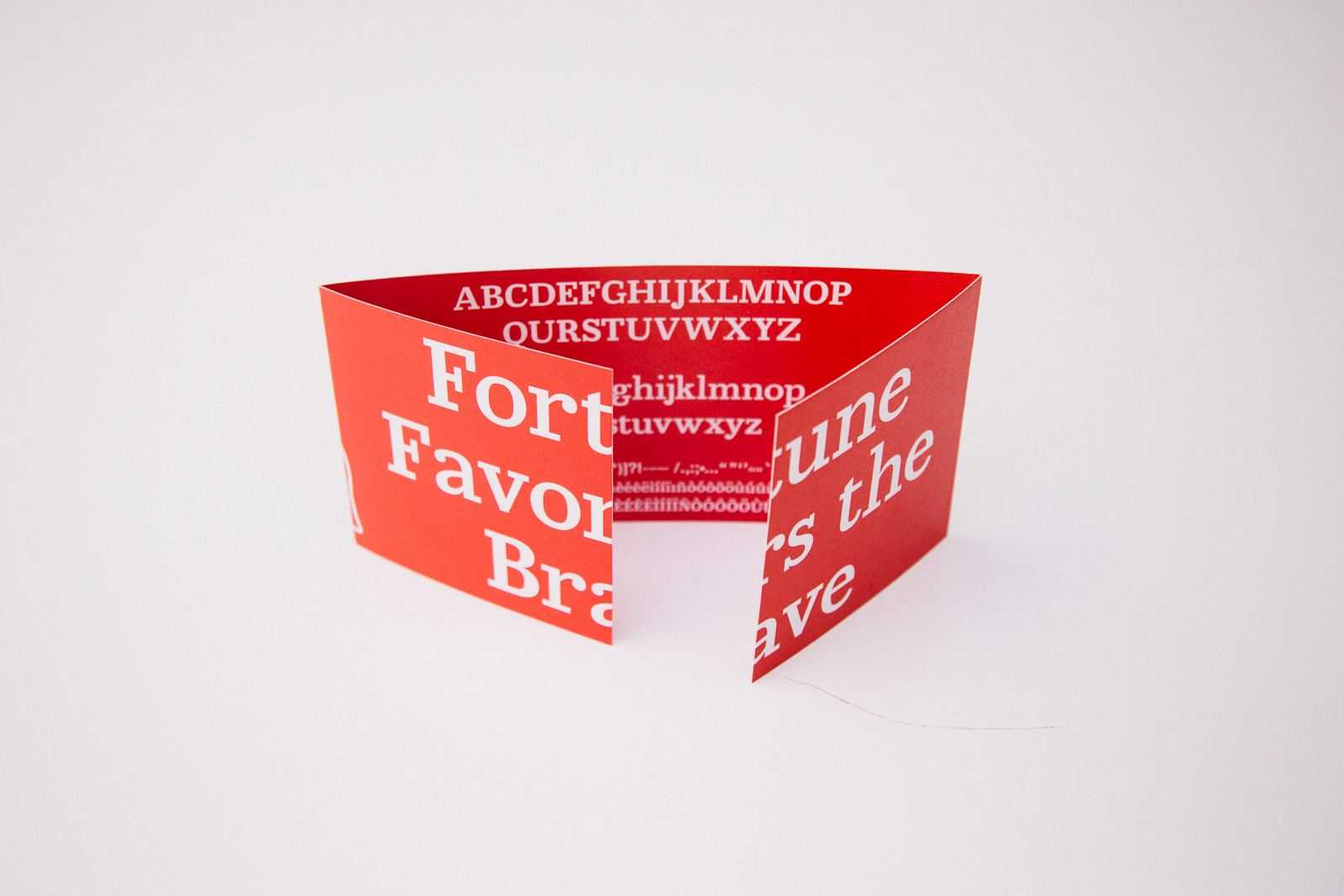
FD Slab
FD Slab is a utilitarian typeface with a utilitarian name. Inspired by American firemen, the slab serif allows for a strong and stable balance in the design. This typeface was derived from a Didot with a moderate contrast to keep a modern feel and keep a sense of sophistication. The ball terminals were added to portray tradition and approachability. Figures were designed to stand out with the possibility to be used in display formats. As most Firemen are connected to a specific station number, this represents their home and community.
Originally wanting to work with a uppercase display typeface, I focused on regular weight and lowercase. Through out the process I explored contrast options. Counter shapes were also elements that I constantly changed to get the right feel. I had Didot as a reference, but also my calligraphy from the early weeks in the class. When the contrast felt too low or starting to feel too old style I adapted my counter shapes based off of one of my first references. I didn’t want something that felt too fancy, or something too low brow.
In the end I found the right balance of elements that felt modern, readable and carried a sense of tradition.